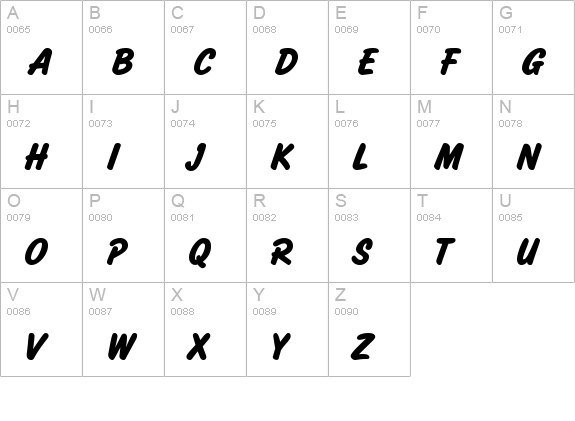
AsdaScript-Bold Font Details
AsdaScript-Bold is a strong, high-contrast variant in the AsdaScript typeface family \xE2\x80\x94 well suited to headlines, attention-grabbing titles, and strong calls-to-action.
AsdaScript-Bold is a modern and stylish font that exudes elegance and sophistication. Its bold and sleek design makes it perfect for creating eye-catching headlines, titles, and logos. The thick strokes and delicate curves of AsdaScript-Bold effortlessly combine to create a harmonious balance between traditional and contemporary styles. Best of all, AsdaScript-Bold is completely free to download at FontsMarket.com! This means you can easily add this stunning font to your collection without any cost. Whether you're working on a professional project or simply looking to enhance your personal designs, AsdaScript-Bold is the ideal choice for adding a touch of flair and individuality. Download it today and elevate your designs with this exquisite and versatile font.